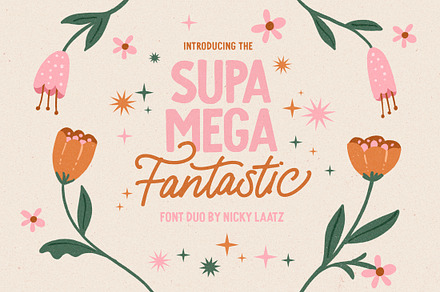
Supa Mega Fantastic Font Duo
A font duo with an exuberant character – an oversized script paired with a chunky display sans, both drawn at high weight.
Pairing two heavy fonts is unconventional and requires careful size relationships, since neither will recede naturally behind the other.
- Both faces drawn at display weight
- Alternates and ligatures
Ideal for
- Event and festival graphics
- Merch and apparel print
- Packaging and signage
- Social and campaign design